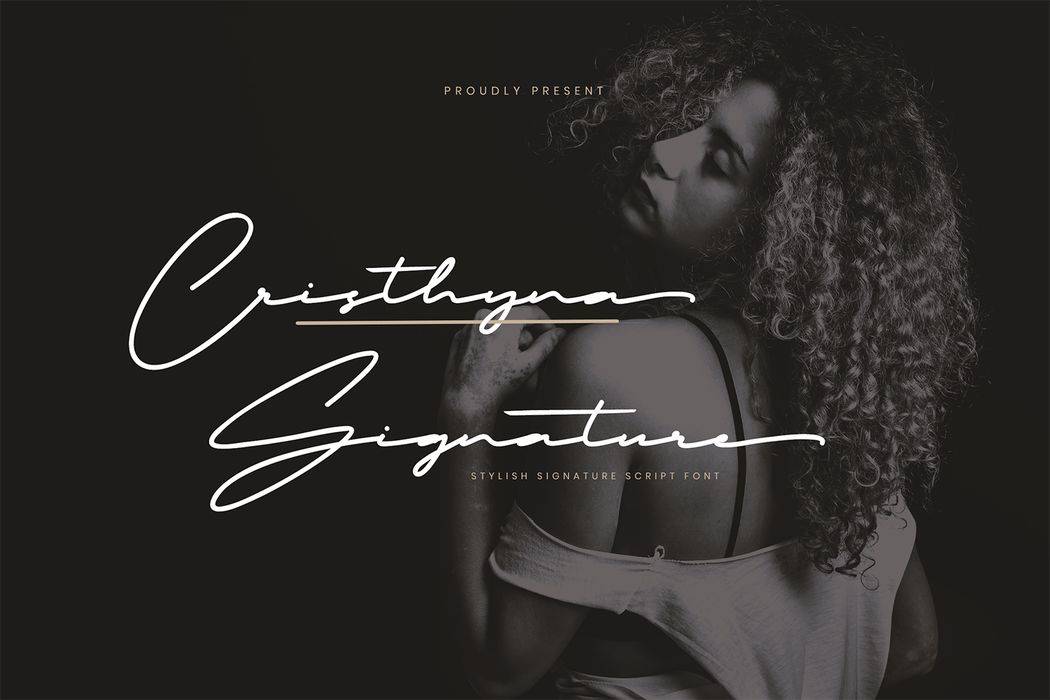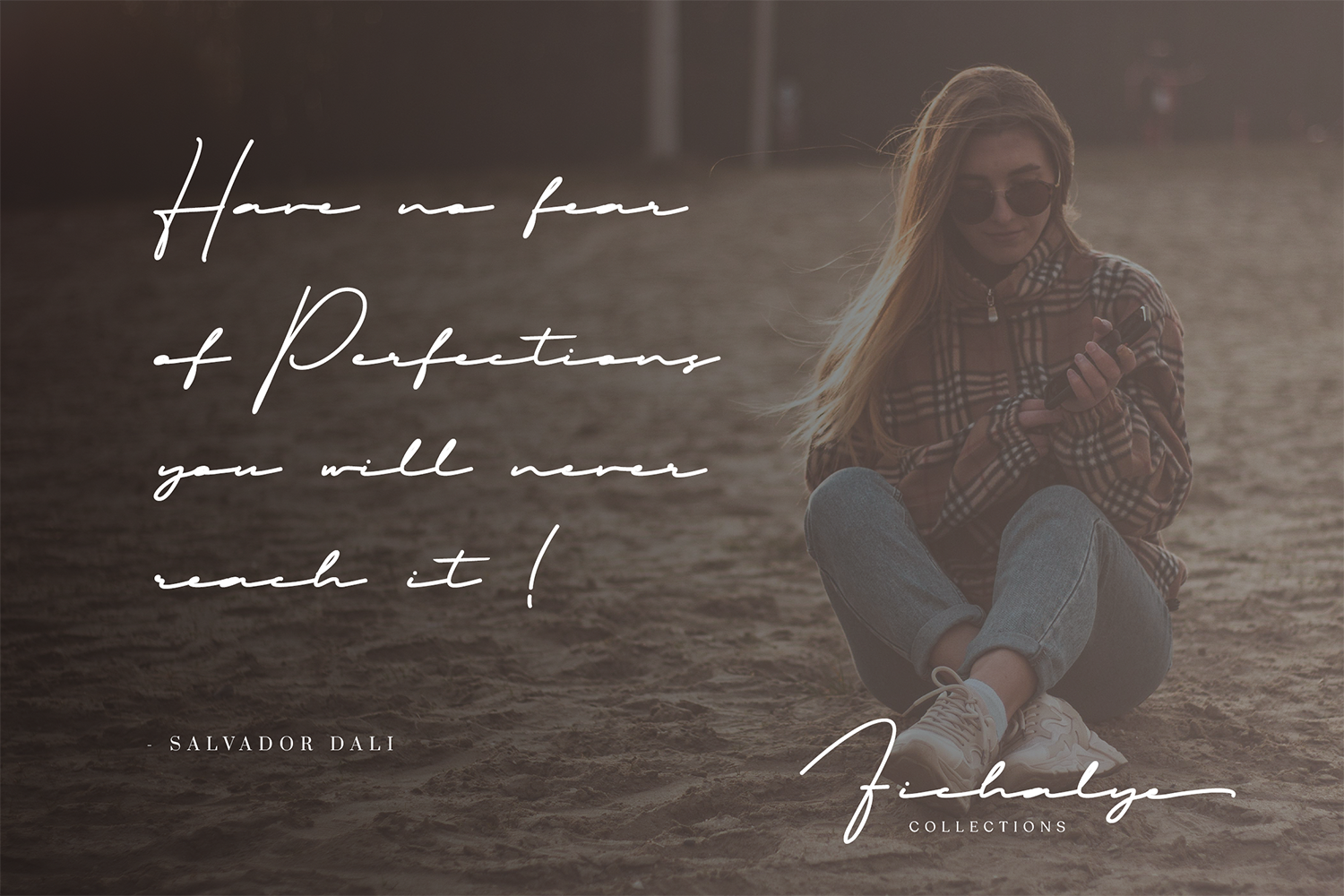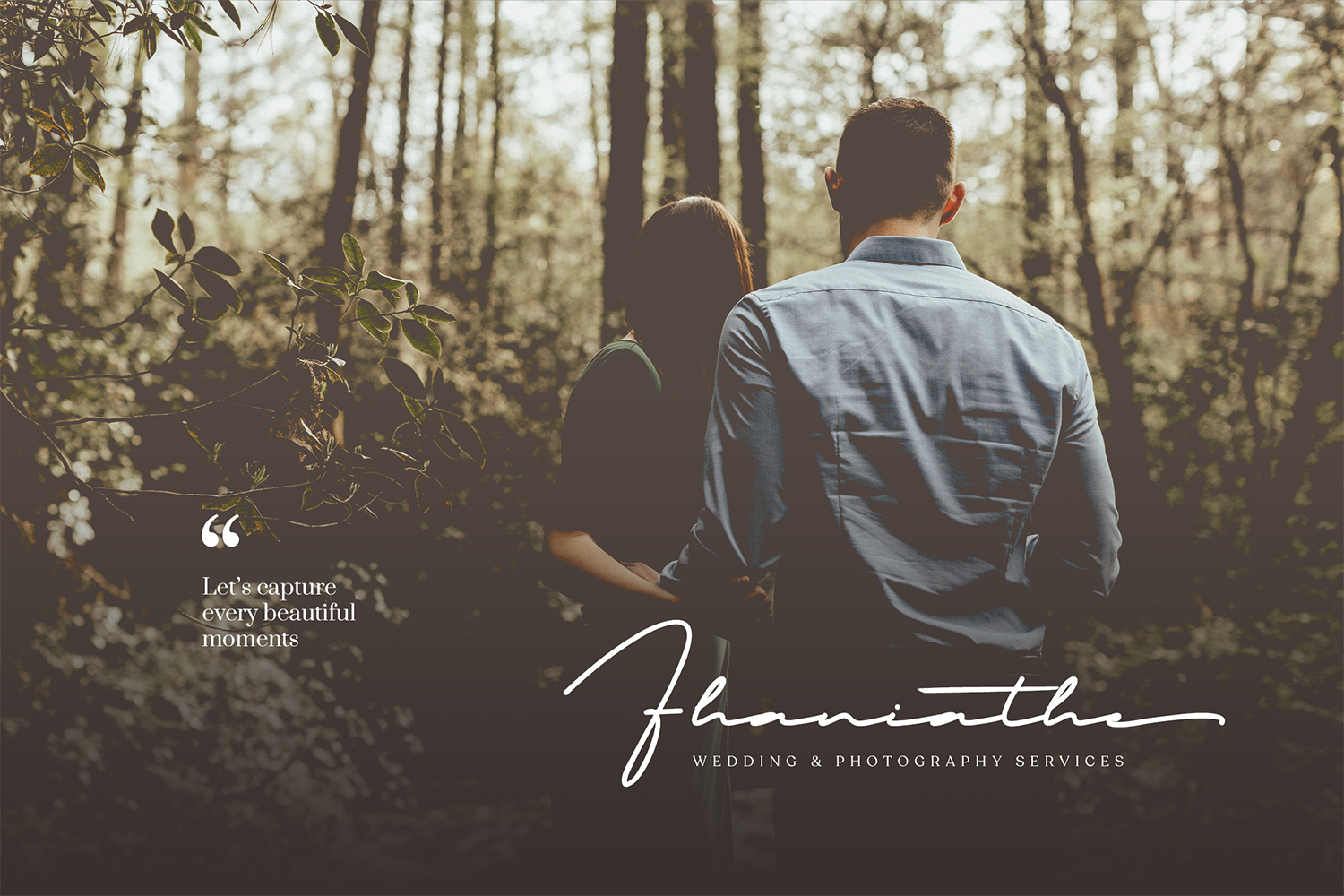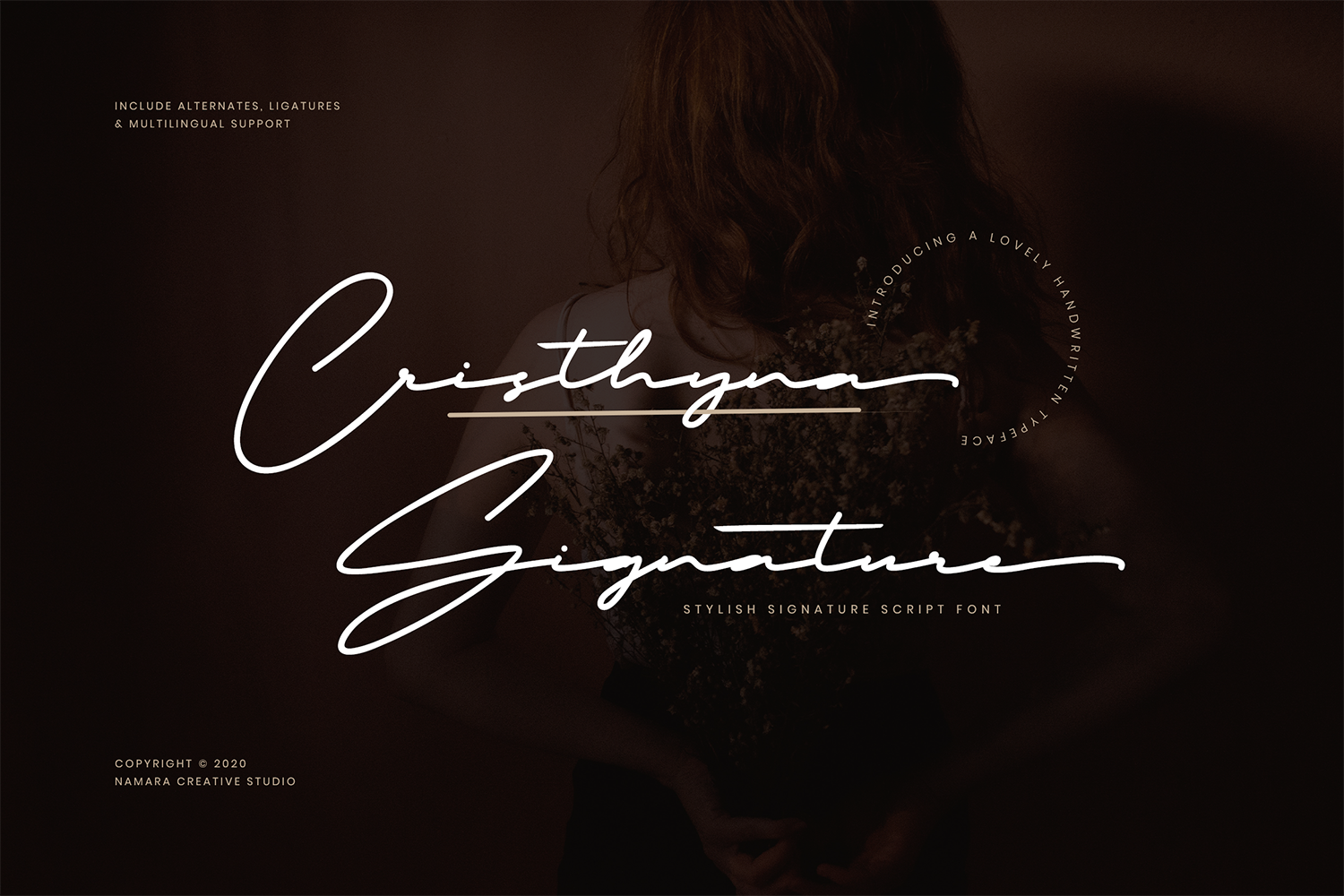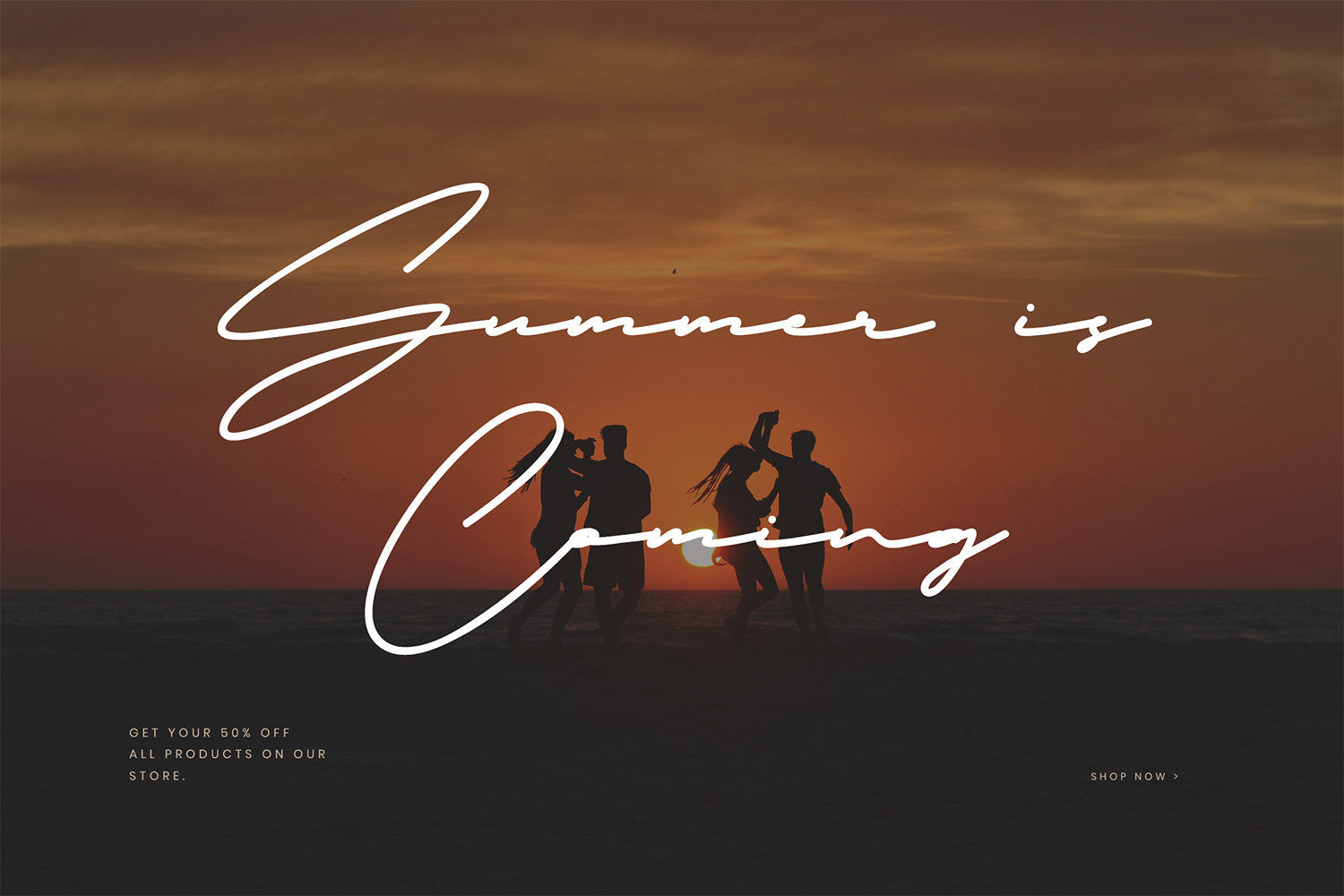
Cristhyna Signature Font is an elegant, slender script typeface with a natural, handwritten feel that mimics authentic cursive signatures. Its fine, flowing lines and airy spacing create a stylish and sophisticated look, perfect for branding, invitations, and luxury product packaging where a personal and refined touch is desired. This font’s graceful character and delicate strokes make it ideal for adding an intimate and artistic flair to creative projects.
Cristhyna Signature Font
About Cristhyna Signature Font
| Font family | Cristhyna Signature Font |
| Release date | 2020-09-13 |
| Designer | Eep Apringga | Namara Creative Studio |